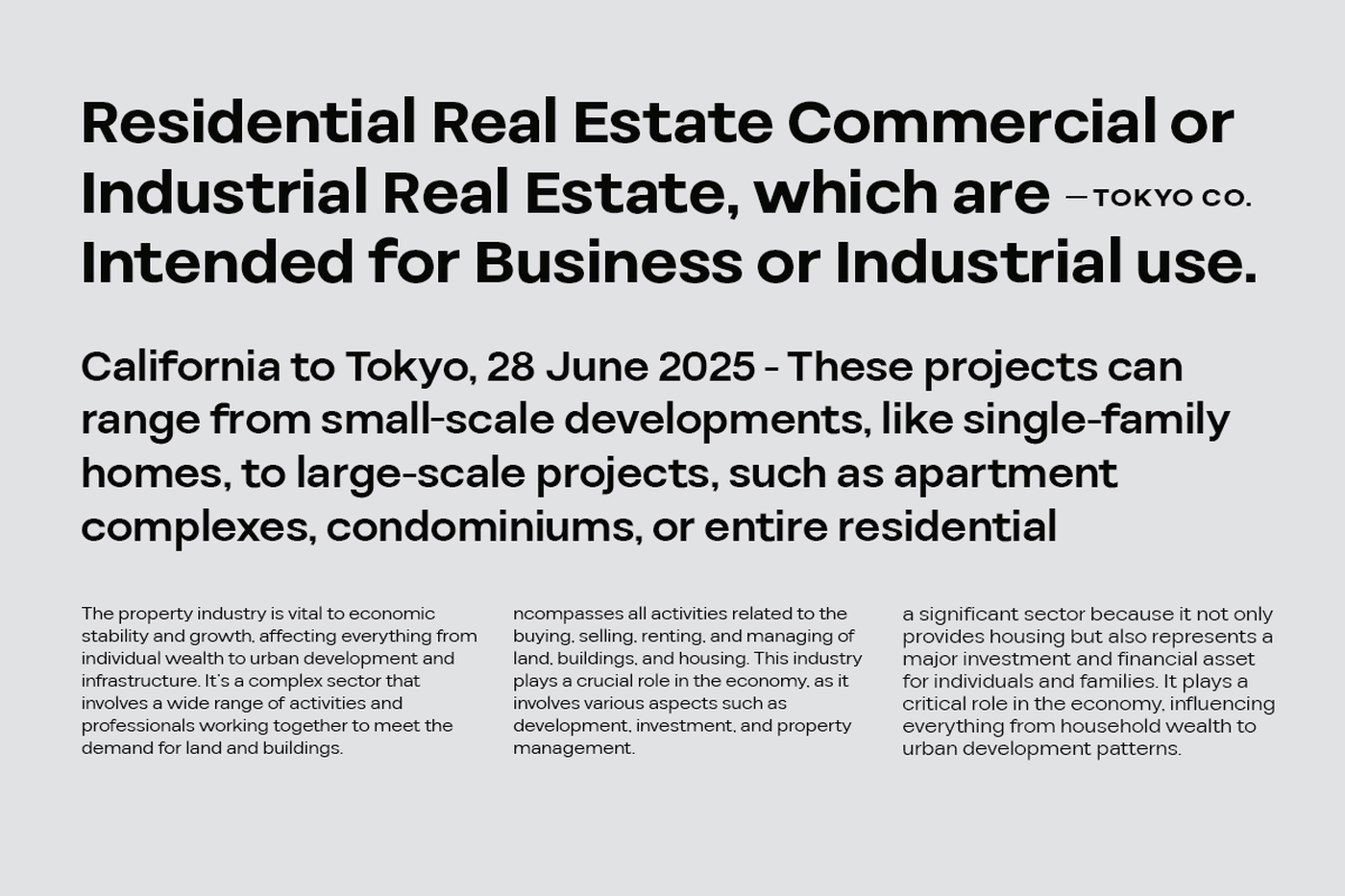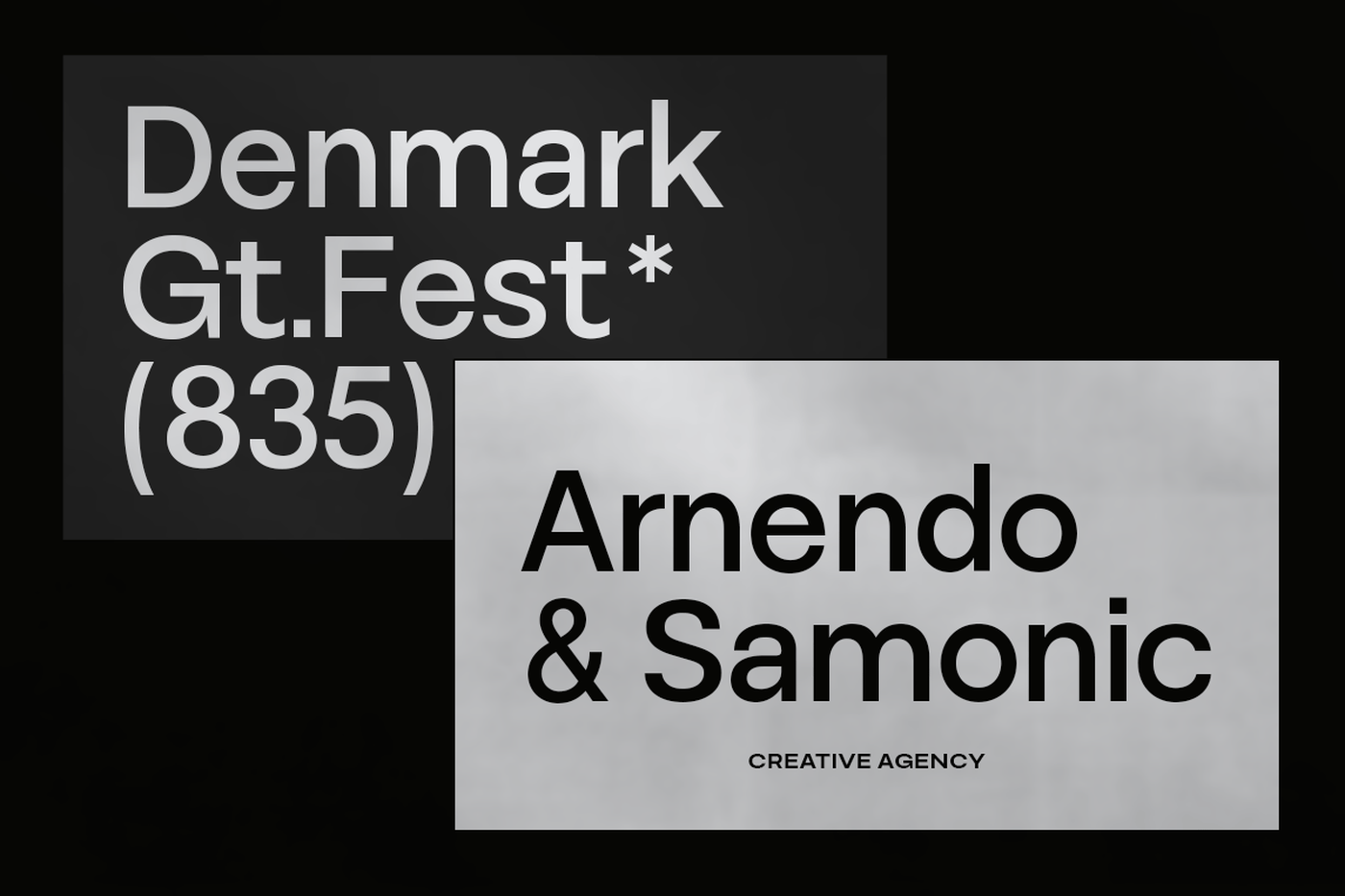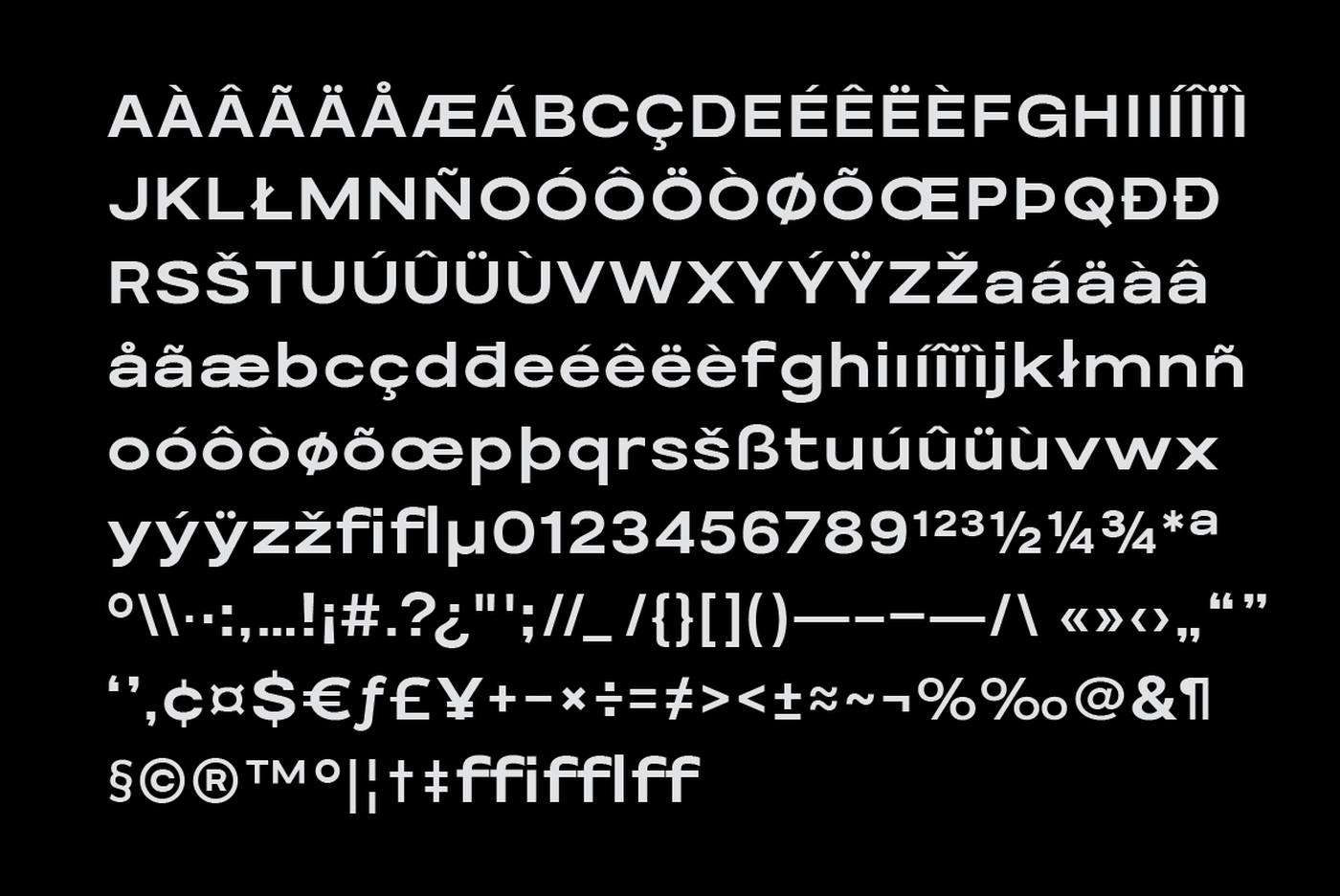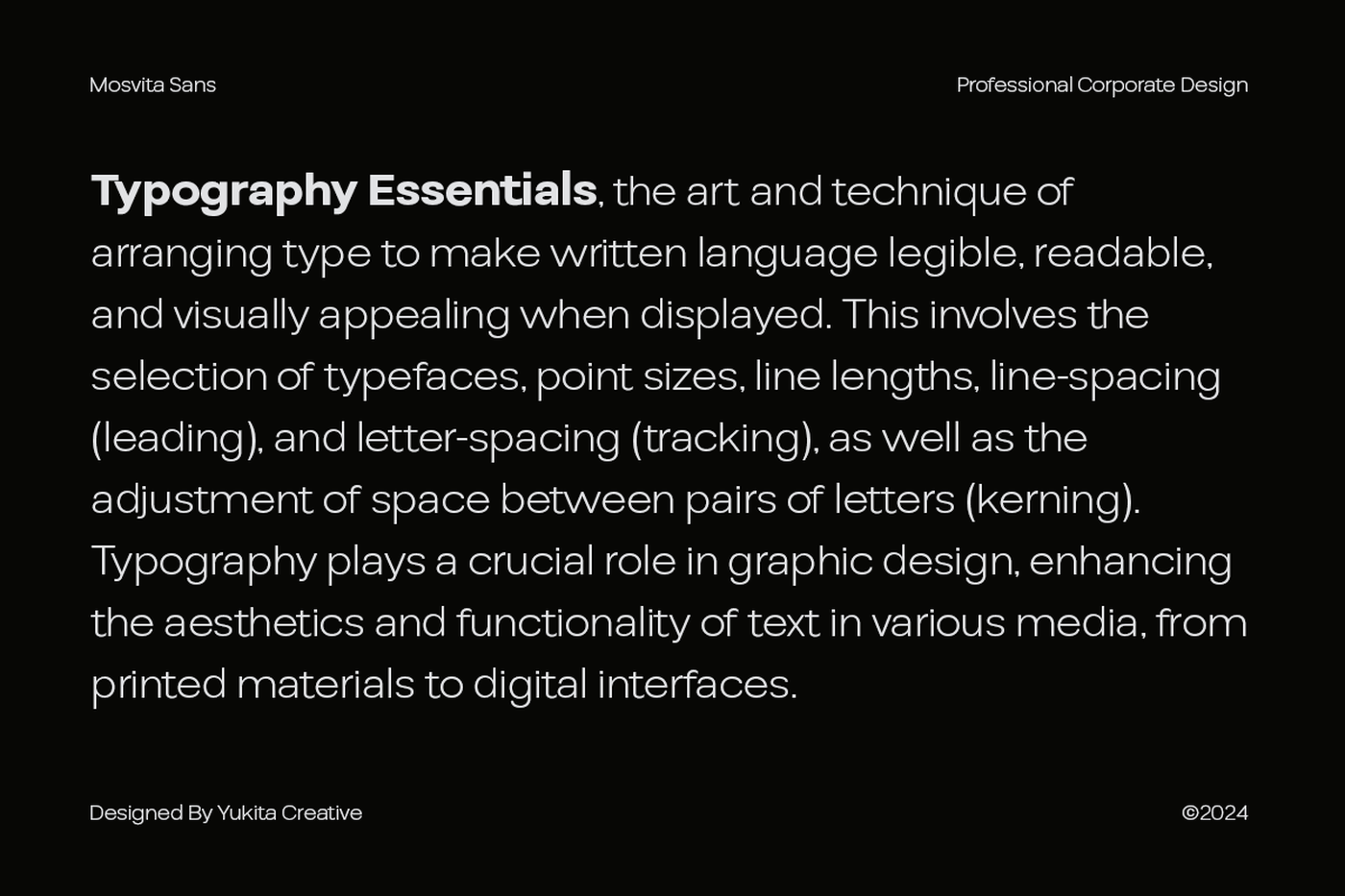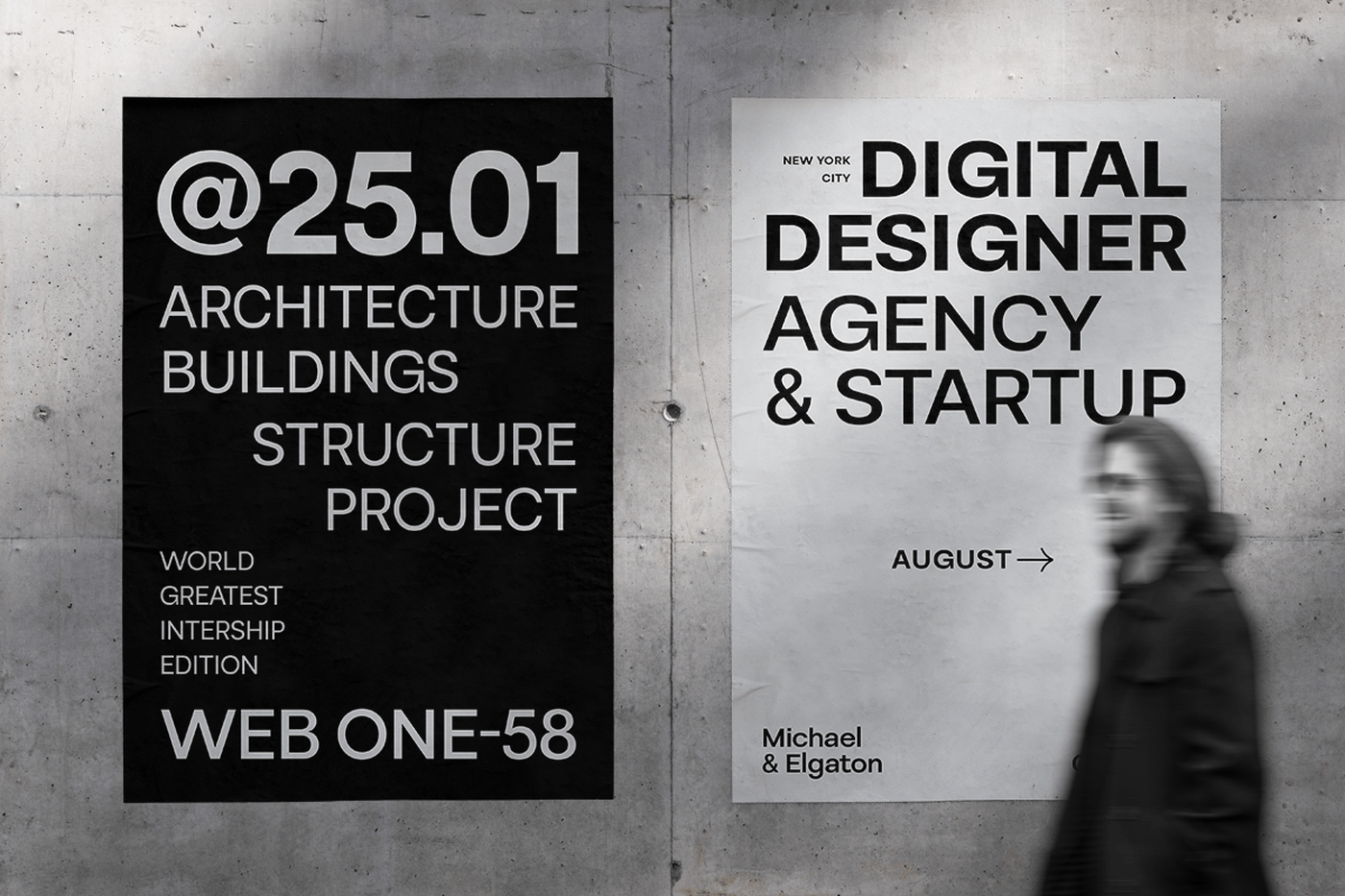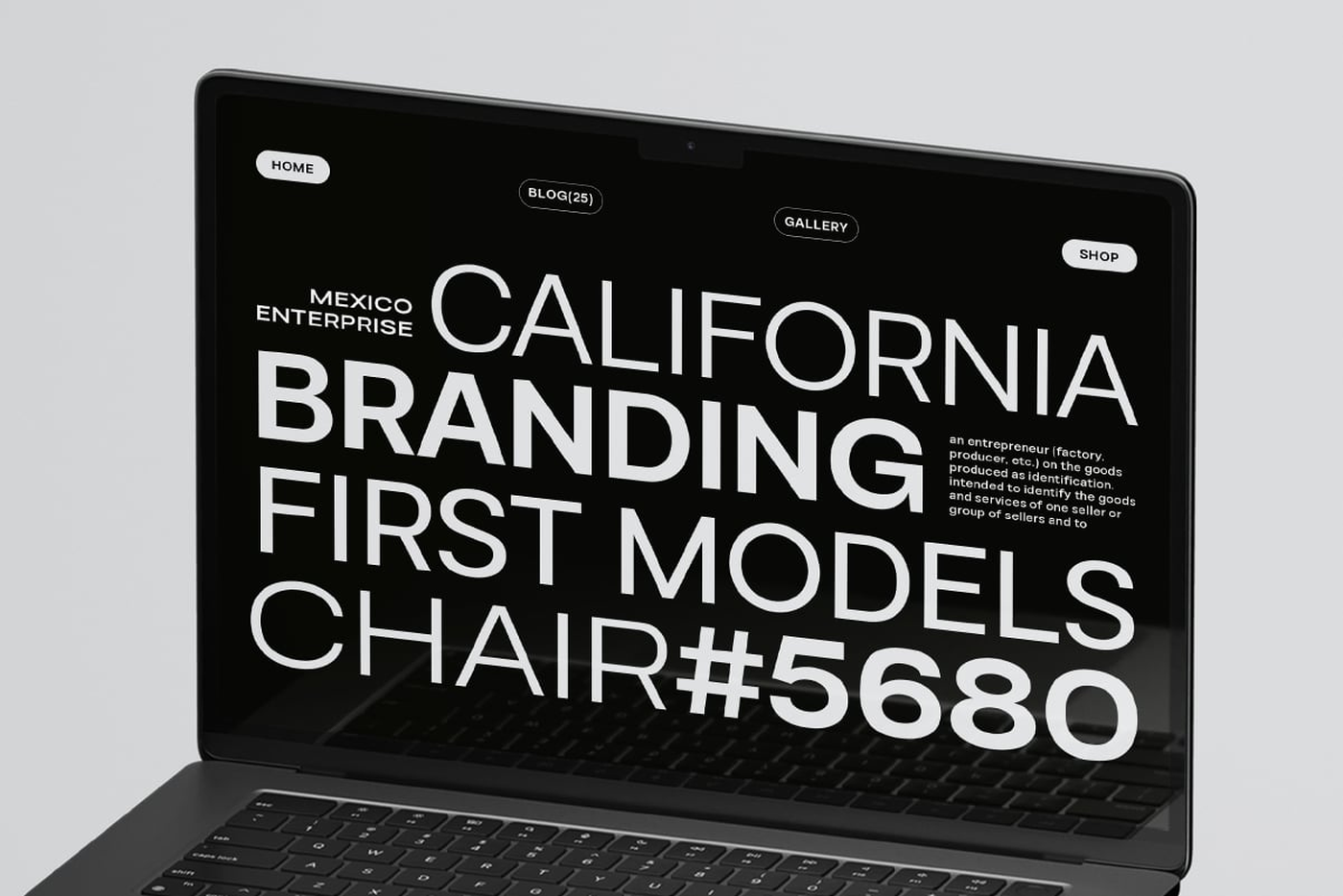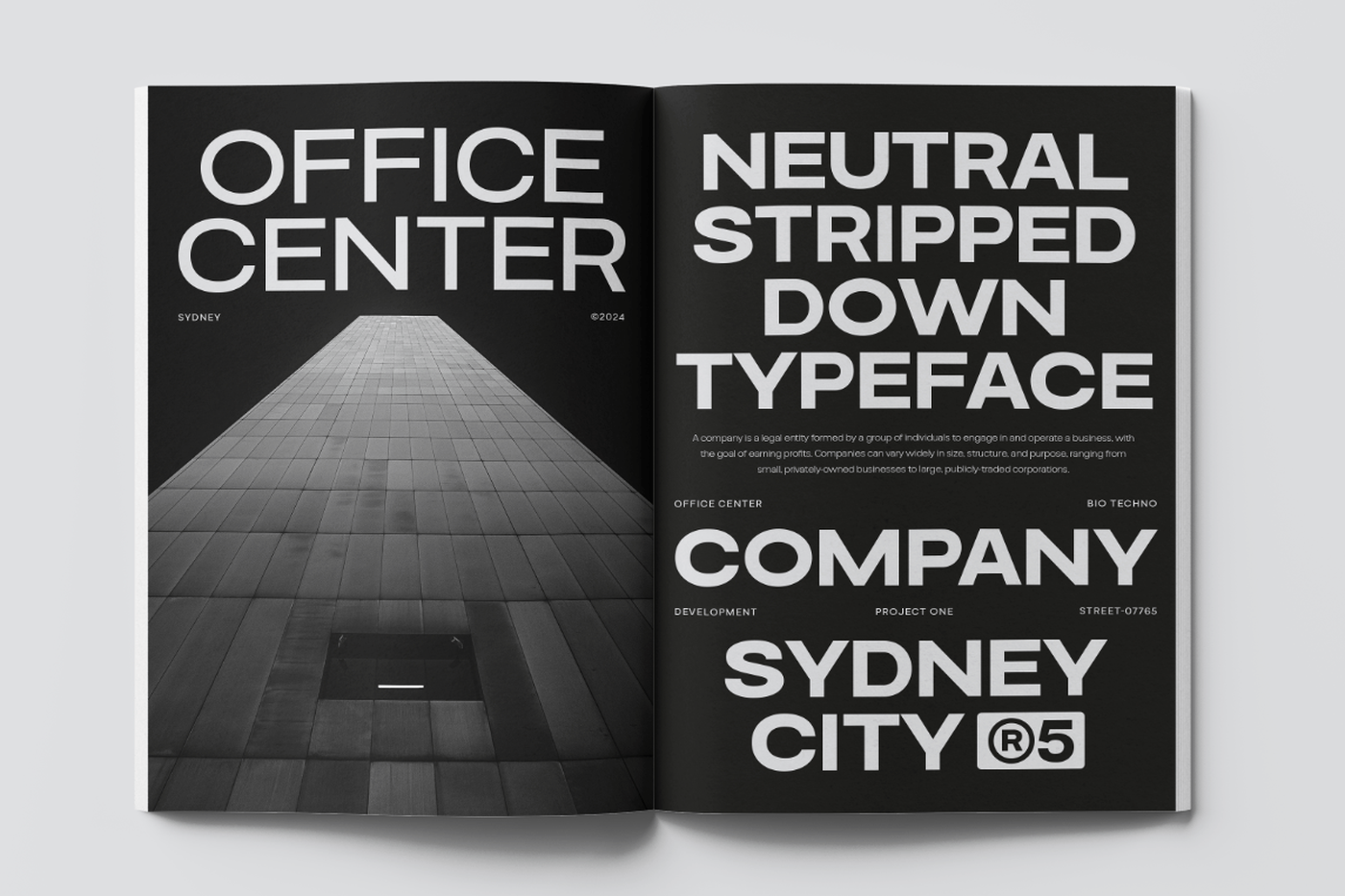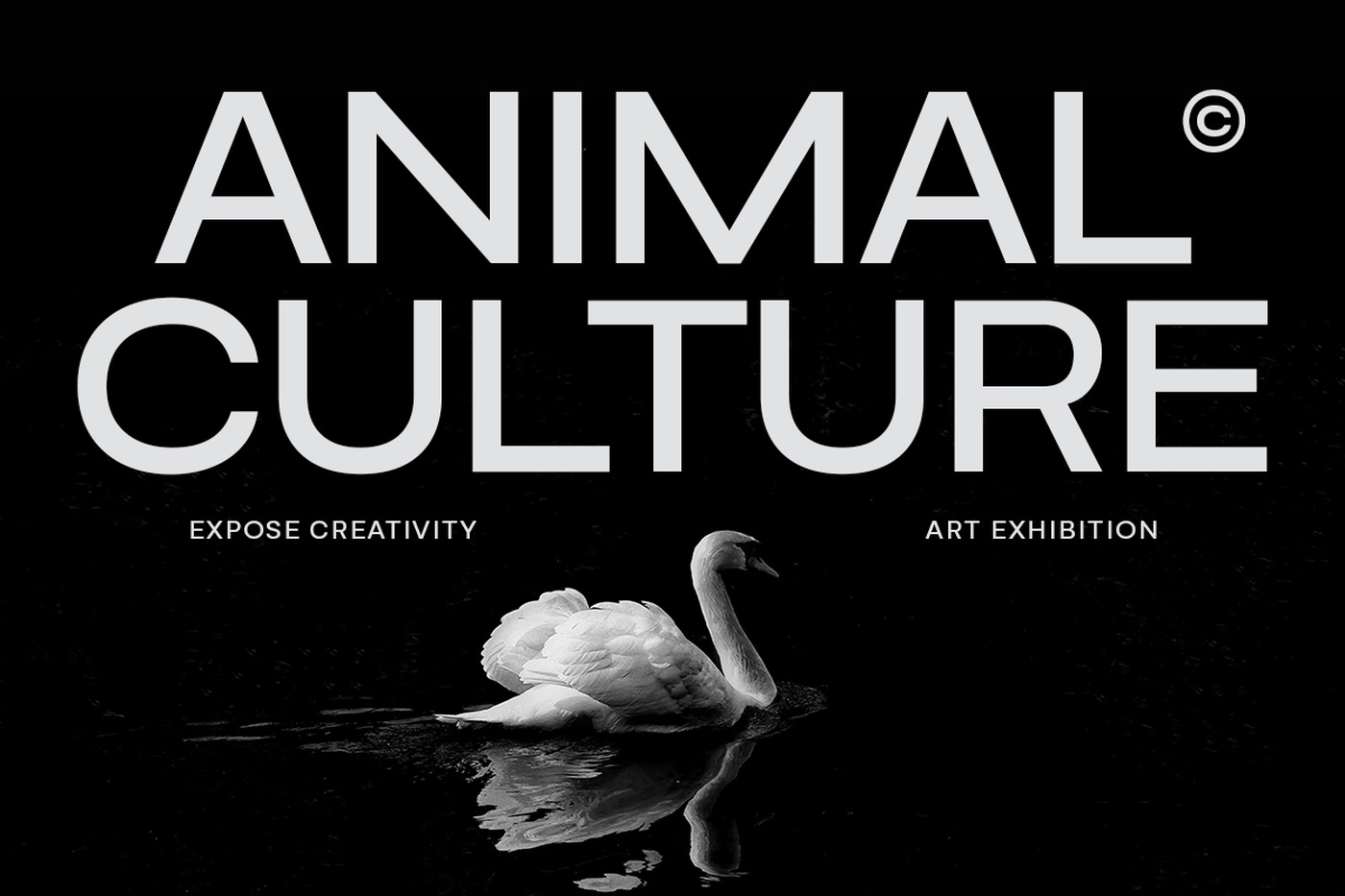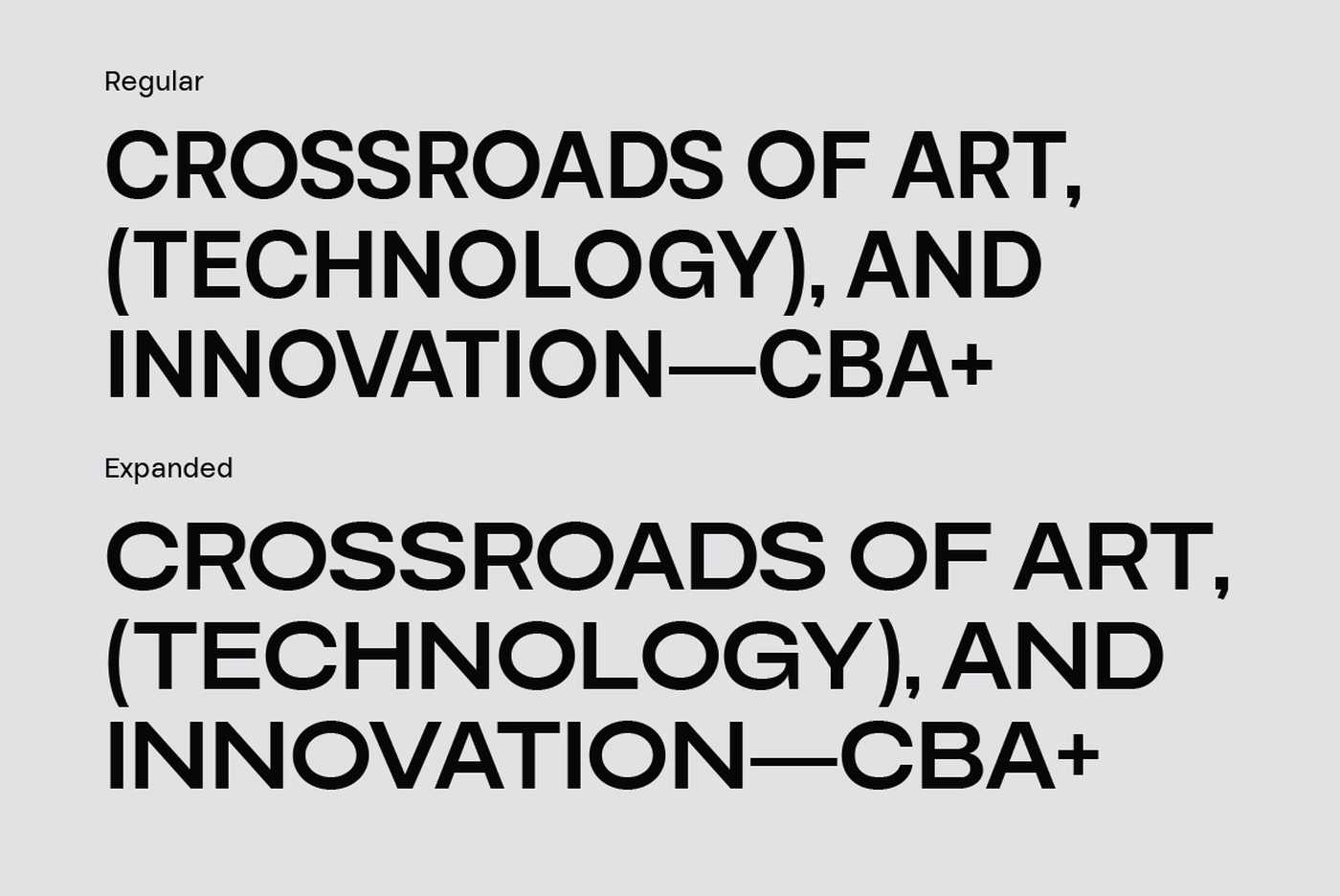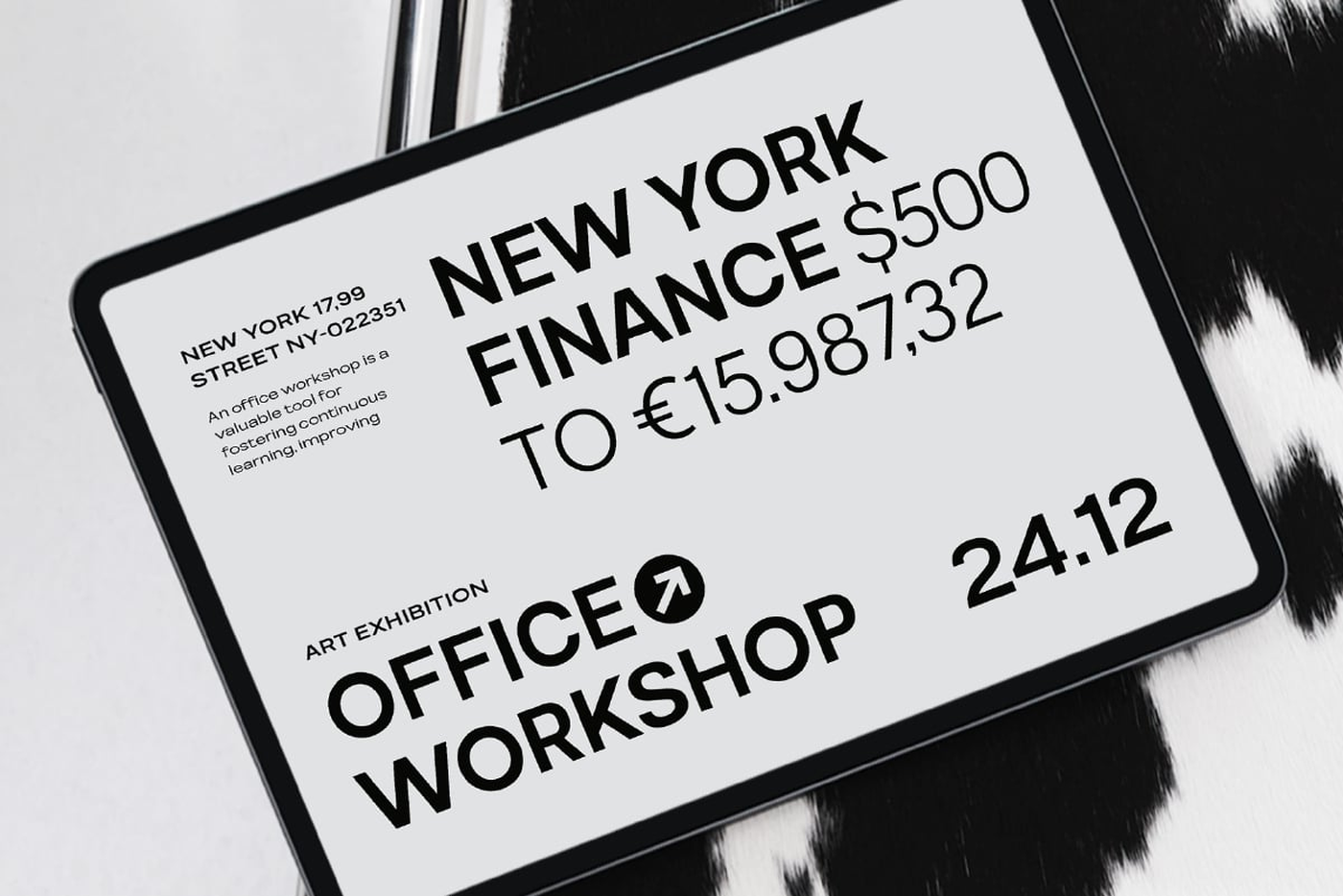
Mosvita - Sans Serif Font Family
Mosvita is a font designed with contemporary beauty and readability as top priorities. It offers incredible flexibility with 14 styles, consisting of 7 normal widths and 7 expanded widths, making it a perfect choice for a variety of design projects.